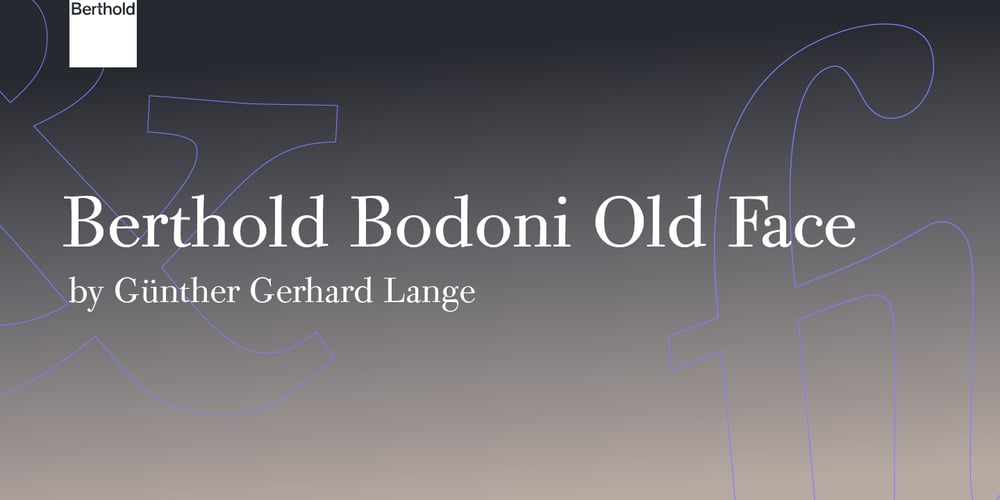
Berthold Bodoni Old Face W1G
Berthold Bodoni Old Face W1G font
Berthold Bodoni Old Face W1G Font Family was designed by Günter Gerhard Lange and published by Berthold. Berthold Bodoni Old Face W1G contains 6 styles and family package options. Günter Gerhard Lange extensively researched and analyzed numerous original Bodoni prints when creating Berthold Bodoni Old Face. As with all of Lange’s typefaces, he adapted this new Bodoni to meet the demands of today’s composing and printing technology. The results are a Bodoni strictly dedicated to Giambattista Bodoni’s originals of the late 1700s, but with more color and stroke variations than other Bodoni versions. H. Berthold first released the design in 1983, and Lange added small caps and old style figures in 2000. Berthold Bodoni Old Face is known for legibility and clarity even in the smallest sizes.